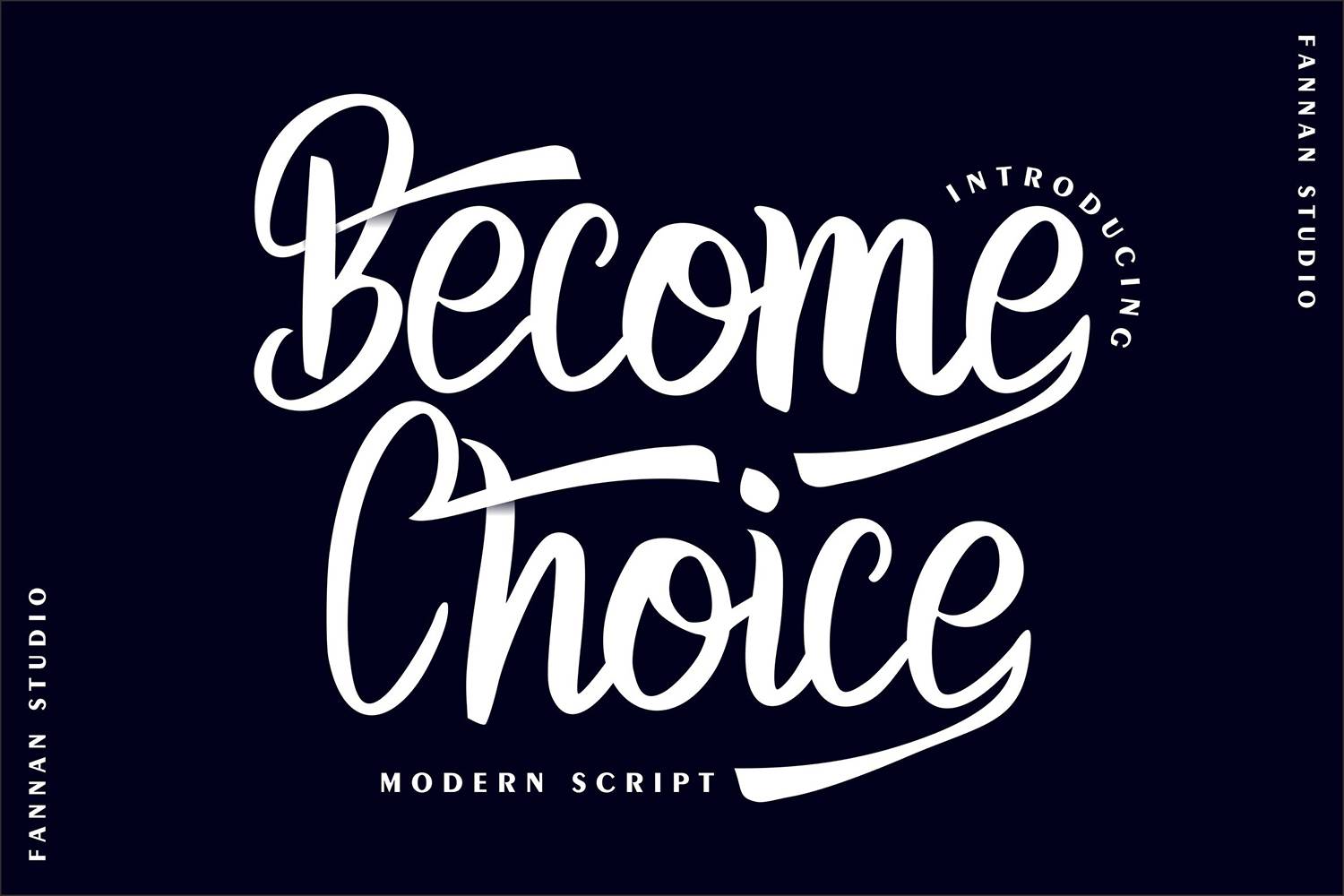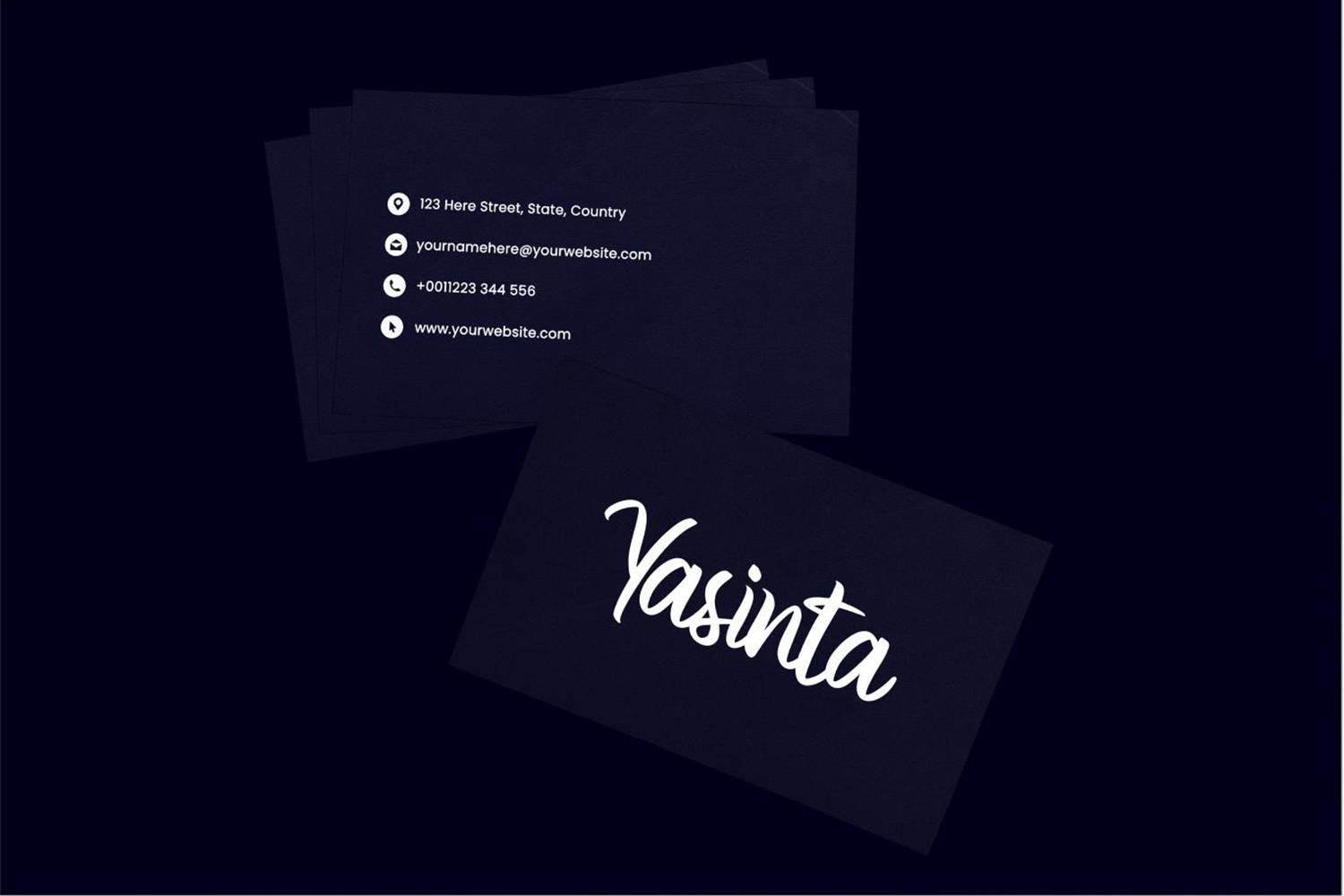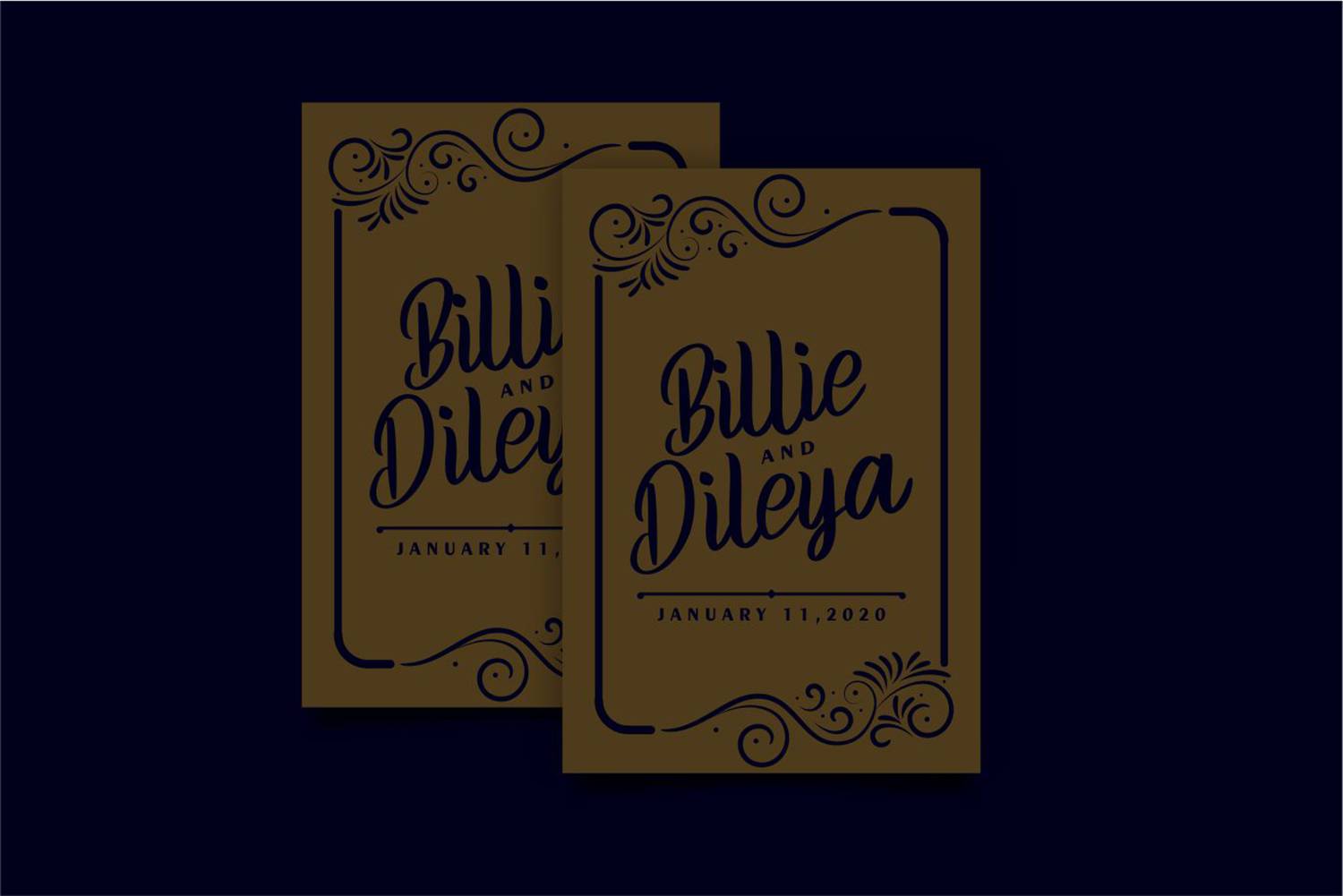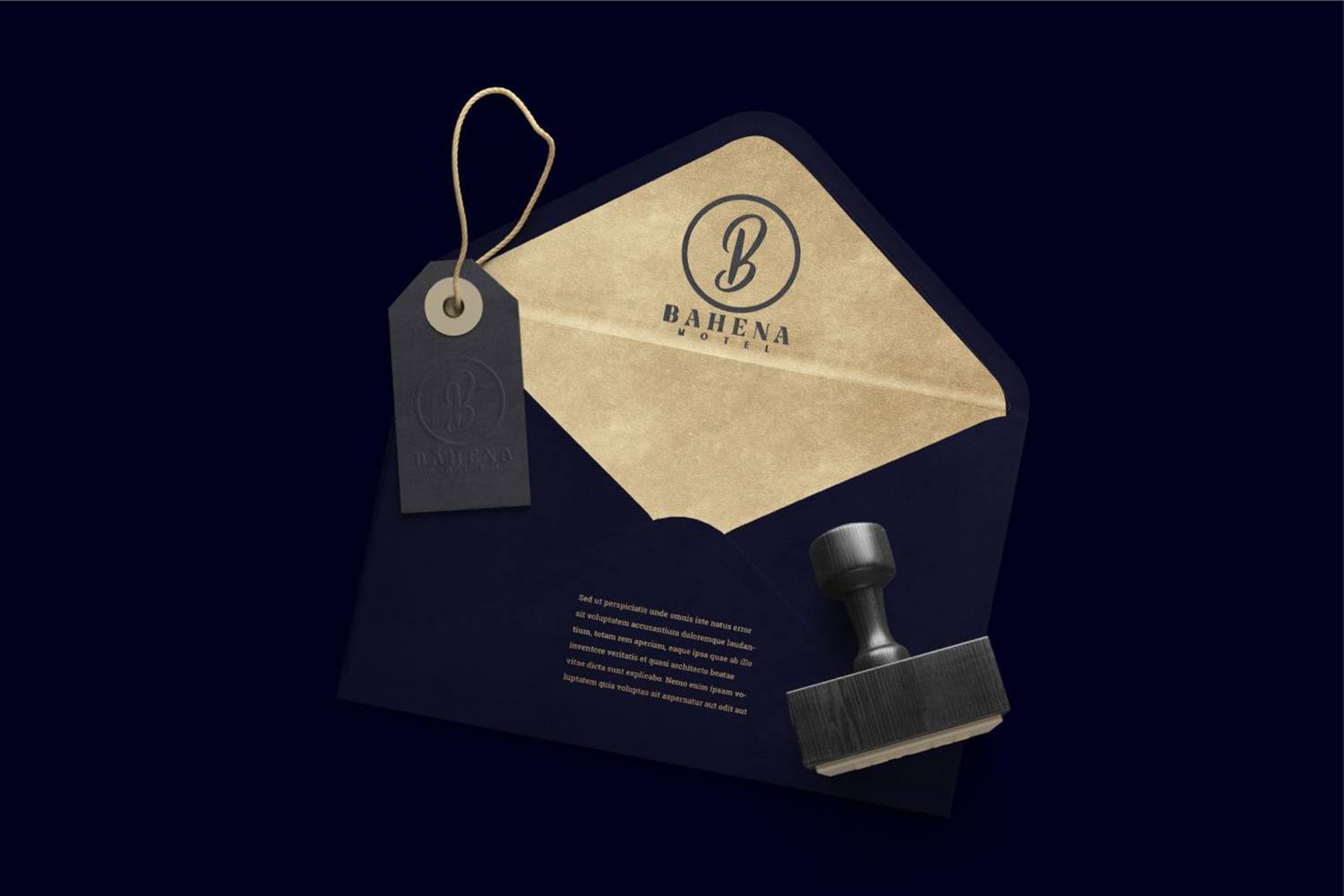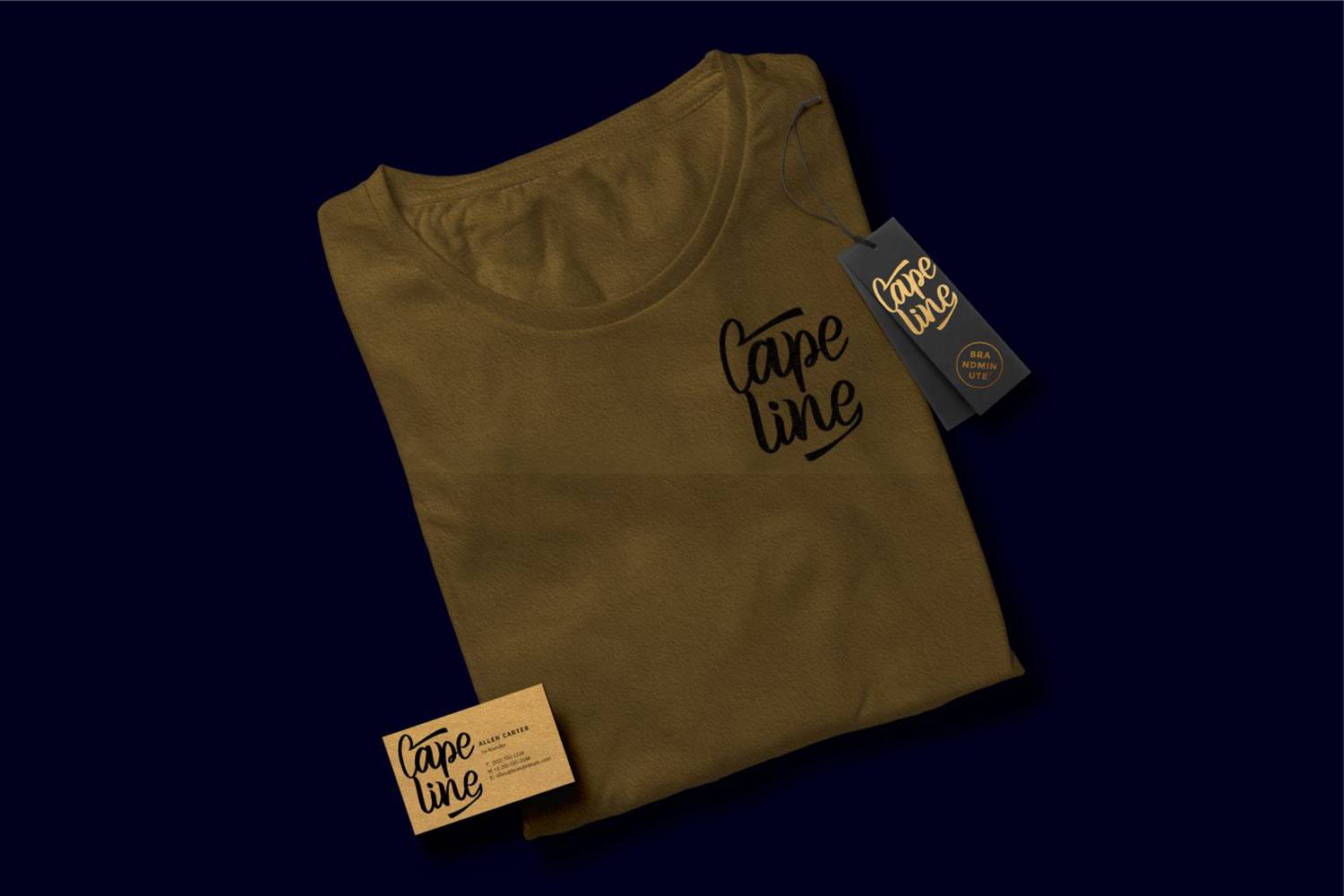
Become Choice is a lively and modern script font with a casual, handwritten feel that brings warmth and personality to any project. Its fluid strokes and slightly varied letterforms create a friendly yet elegant look, making it ideal for branding, invitations, and creative headlines that need a personal touch. This font’s versatile style works beautifully for designs that want to convey approachability with a hint of sophistication.
Become Choice Font
About Become Choice Font
| Font family | Become Choice Font |
| Designer | Fannan Studio |